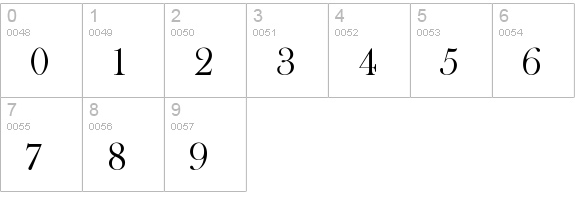
BaskervilleOldFaceEF Font Details
BaskervilleOldFaceEF is a classic and elegant serif font that exudes sophistication and timelessness. With its tall x-height, delicate serifs, and graceful curves, this font is perfect for adding a touch of refinement to any design project. Whether you're creating invitations, branding materials, or editorial layouts, BaskervilleOldFaceEF will elevate your work with its timeless charm. And the best part? BaskervilleOldFaceEF is available for free download at FontsMarket.com. This means you can easily access this beautiful font and use it in your projects without any cost. Don't miss out on the opportunity to enhance your designs with the timeless beauty of BaskervilleOldFaceEF – download it for free today at FontsMarket.com!